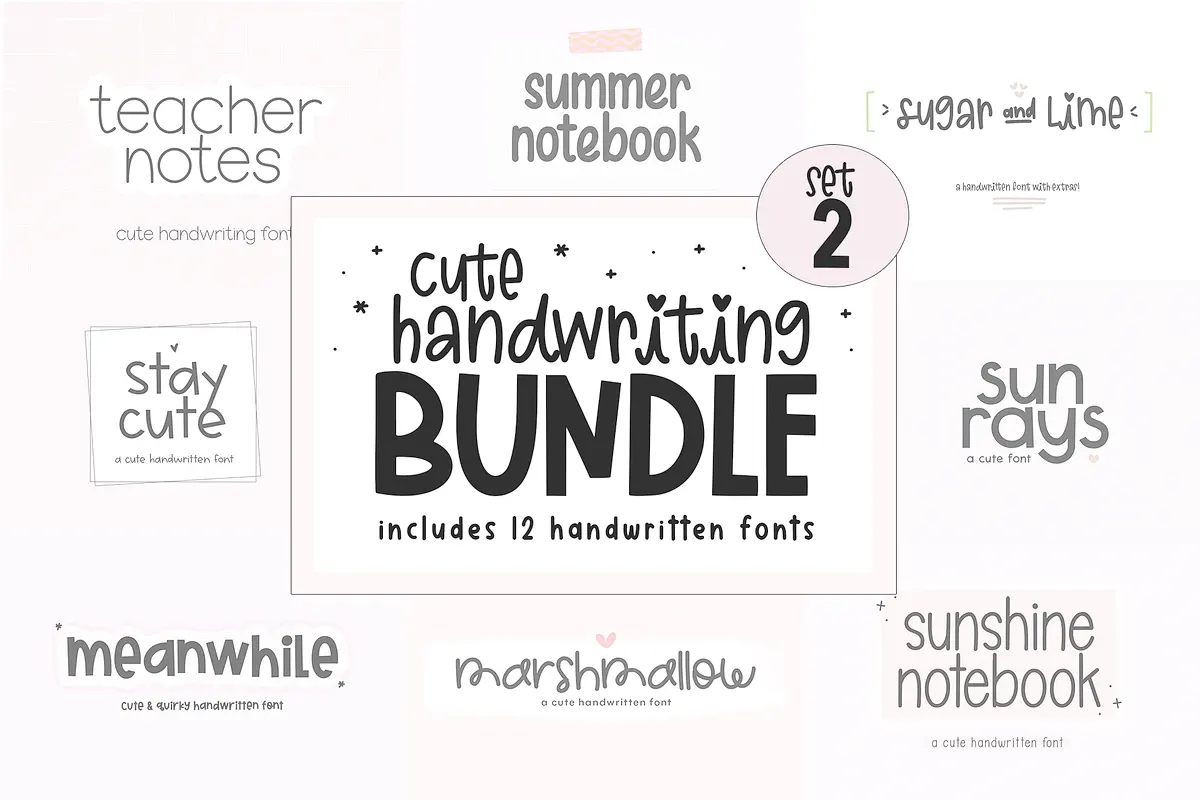
Cute Handwriting Font Bundle | 2 Free Download is an adorable collection of playful, hand-drawn typefaces perfect for creative and lighthearted design projects. This bundle features a variety of charming fonts ideal for greeting cards, planner pages, children’s books, classroom materials, quotes, stickers, and social media graphics.
Each font in the bundle has its own sweet personality, offering you endless ways to add warmth and joy to your work. The bundle includes uppercase and lowercase letters, punctuation, multilingual support, and full compatibility with both Mac and Windows systems.